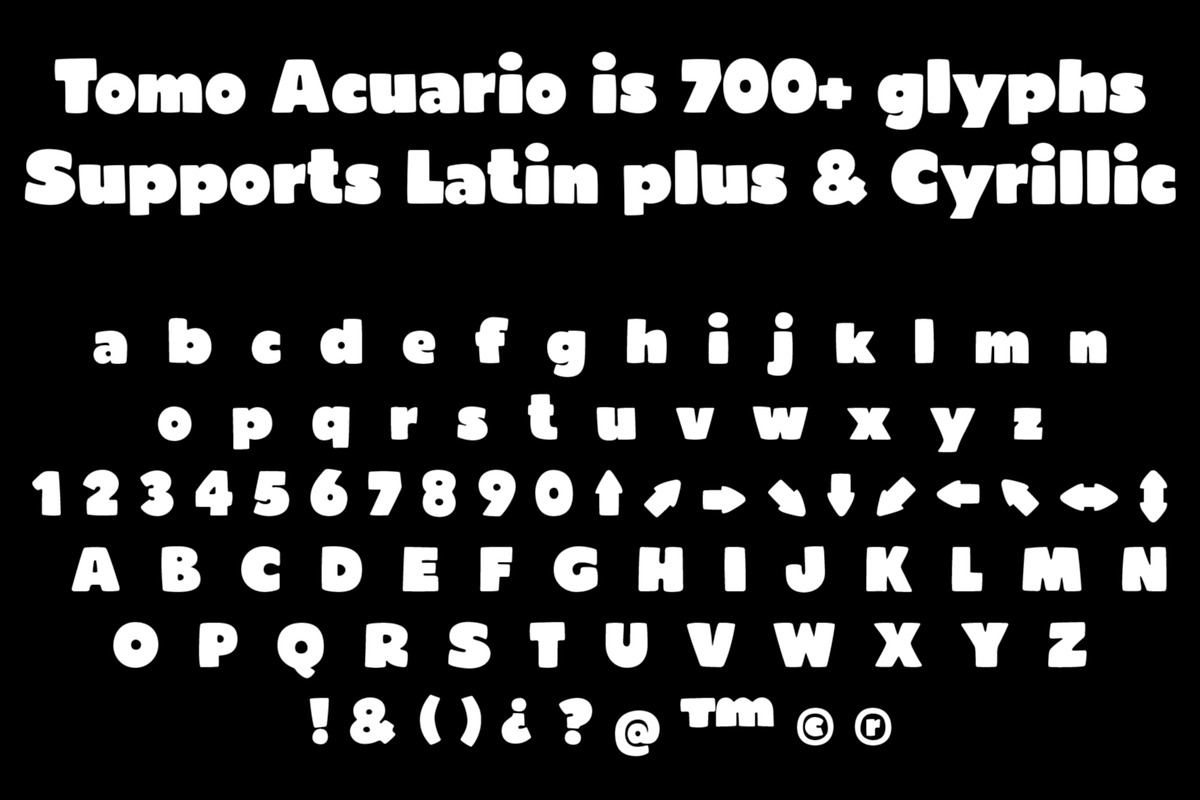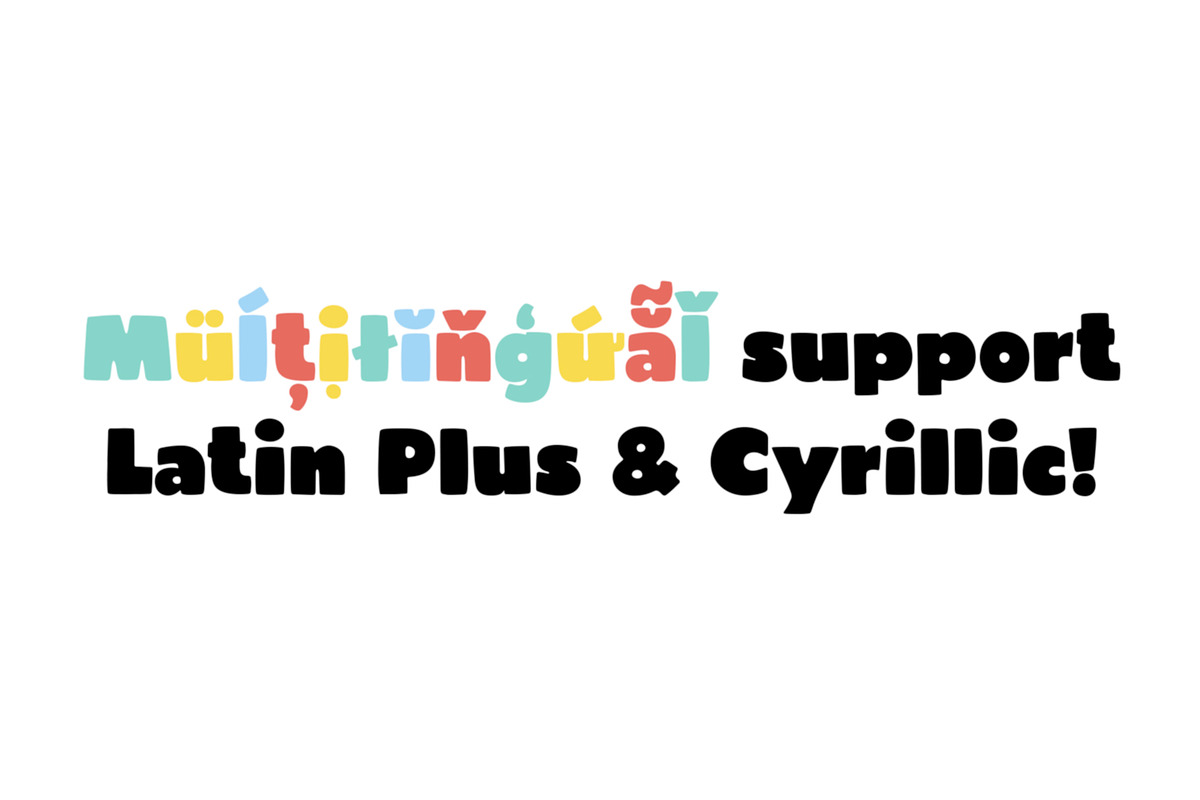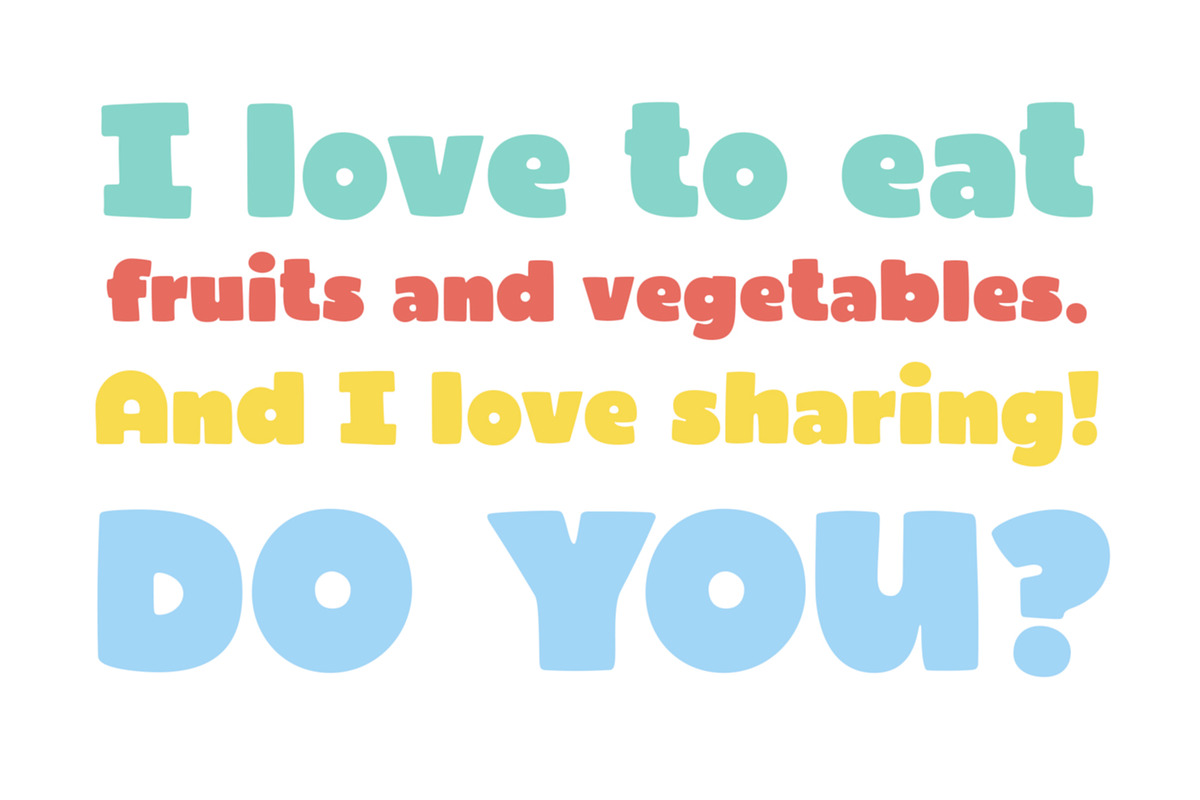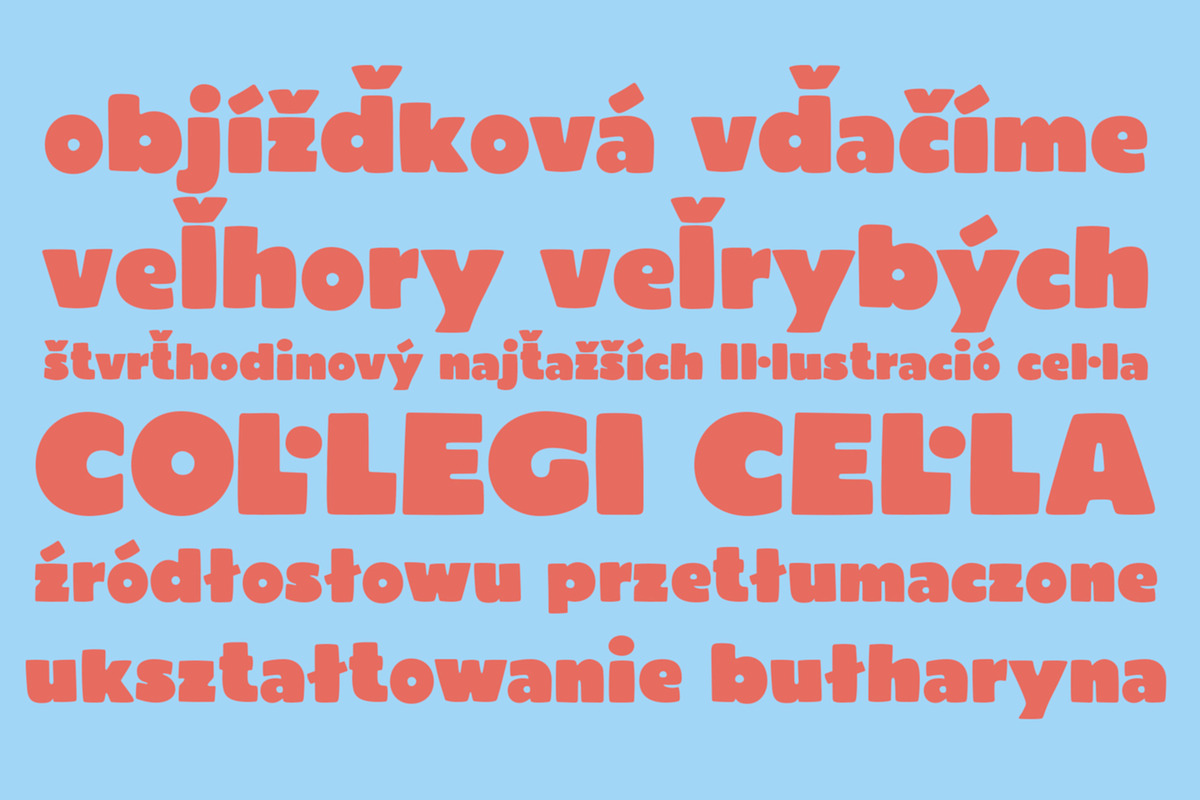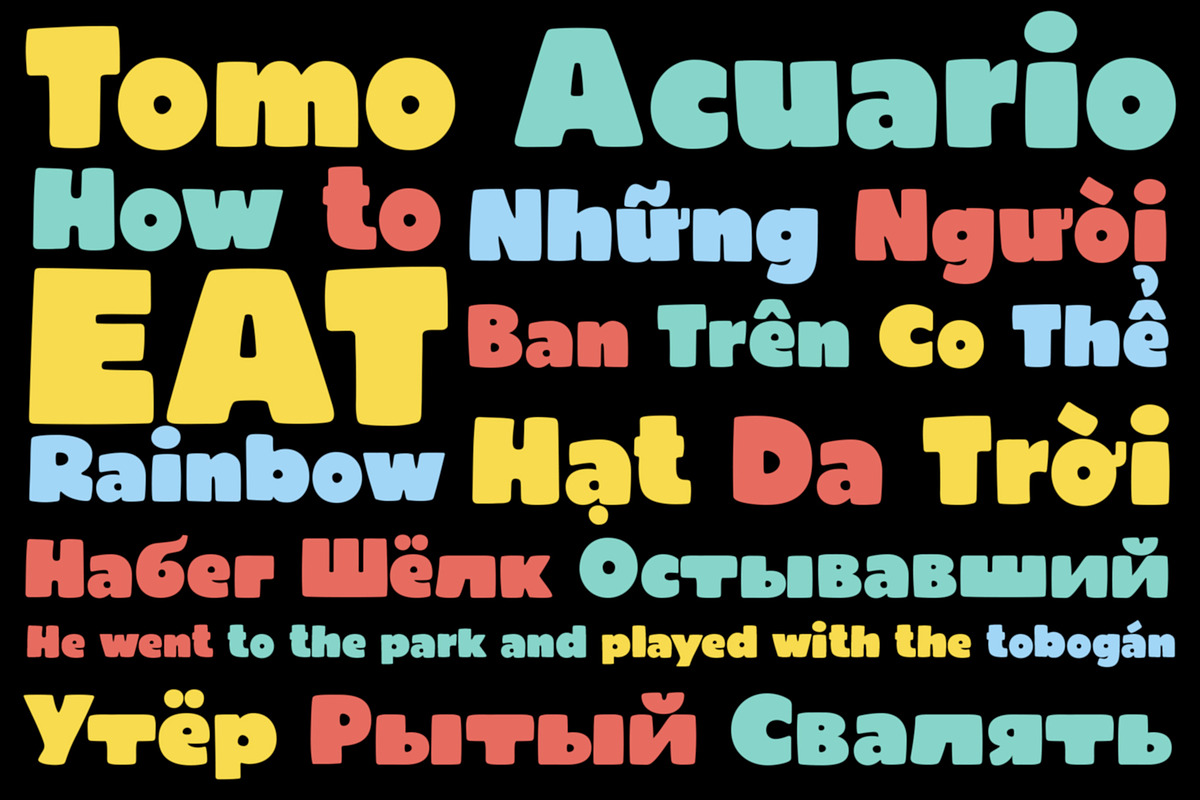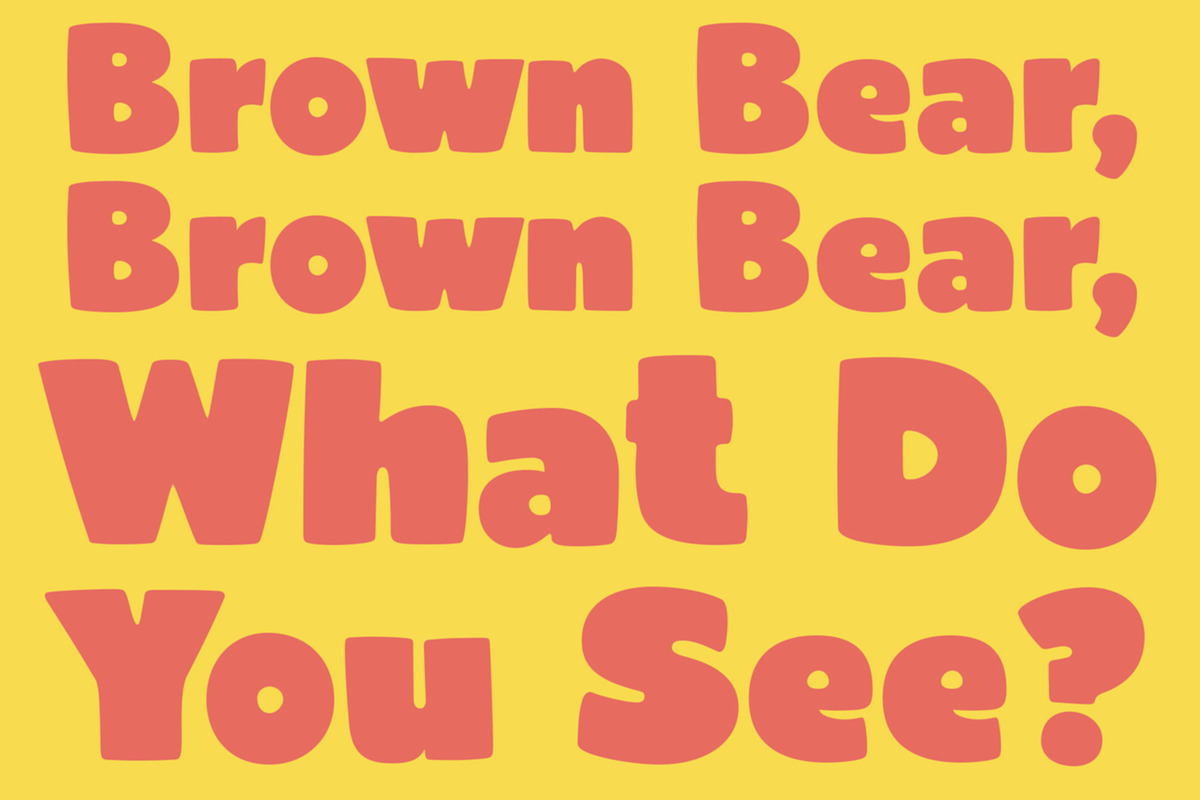
TOMO Acuario
Acuario by TOMO is a strong typeface with friendly shapes. Very cool to speak to kids. Enjoy!
Why TOMO Acuario is worth a look
TOMO Acuario by TOMO Fonts fits naturally into Branding, posters, packaging, typography.